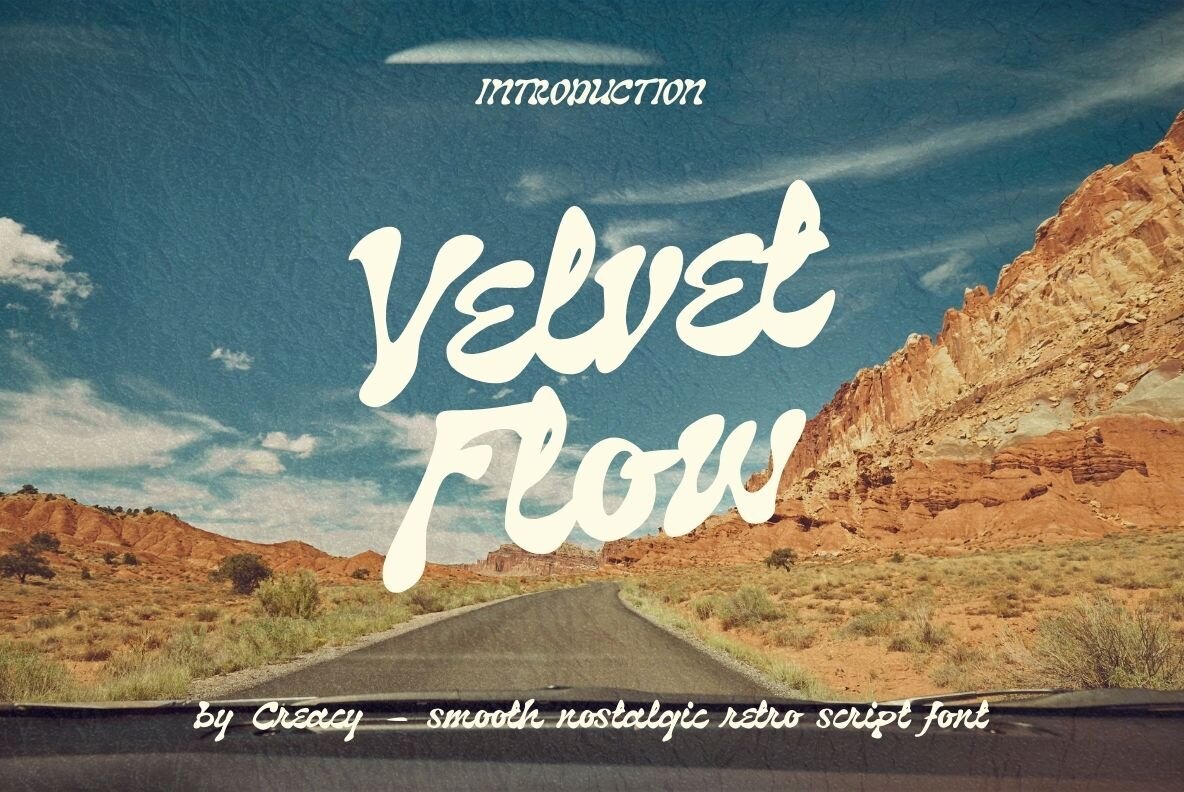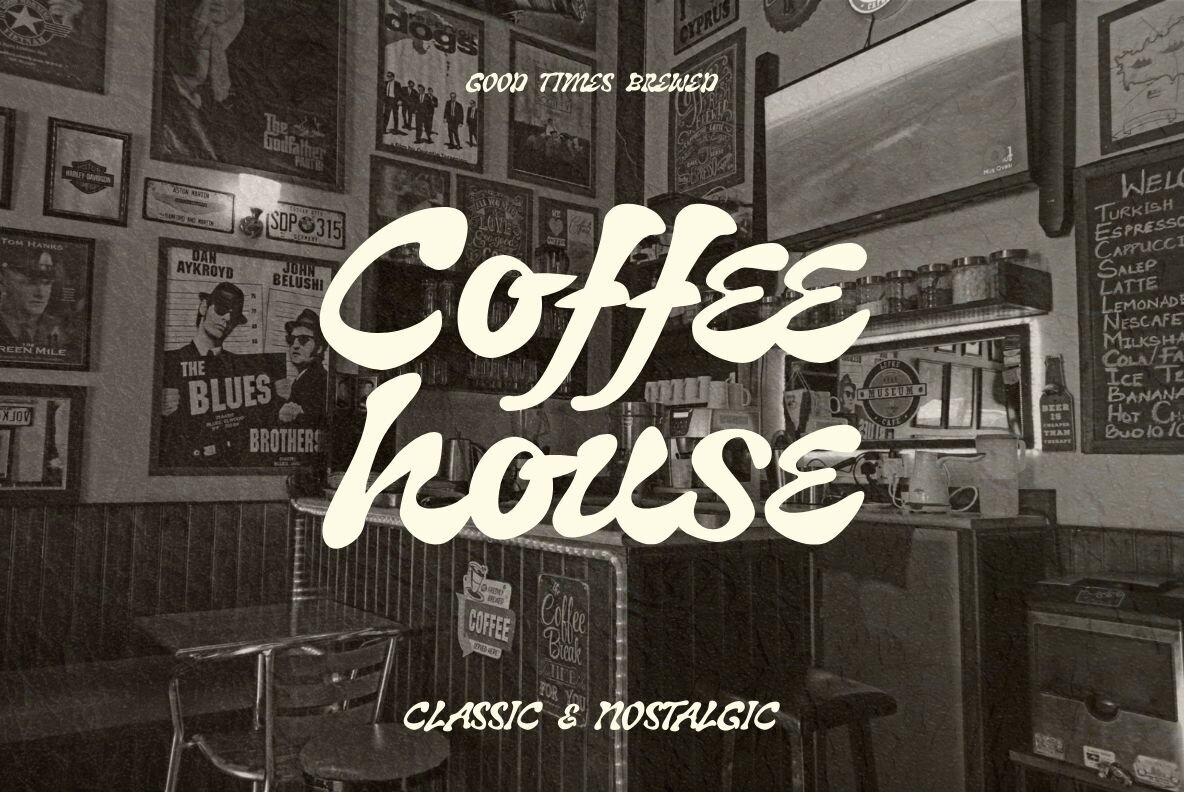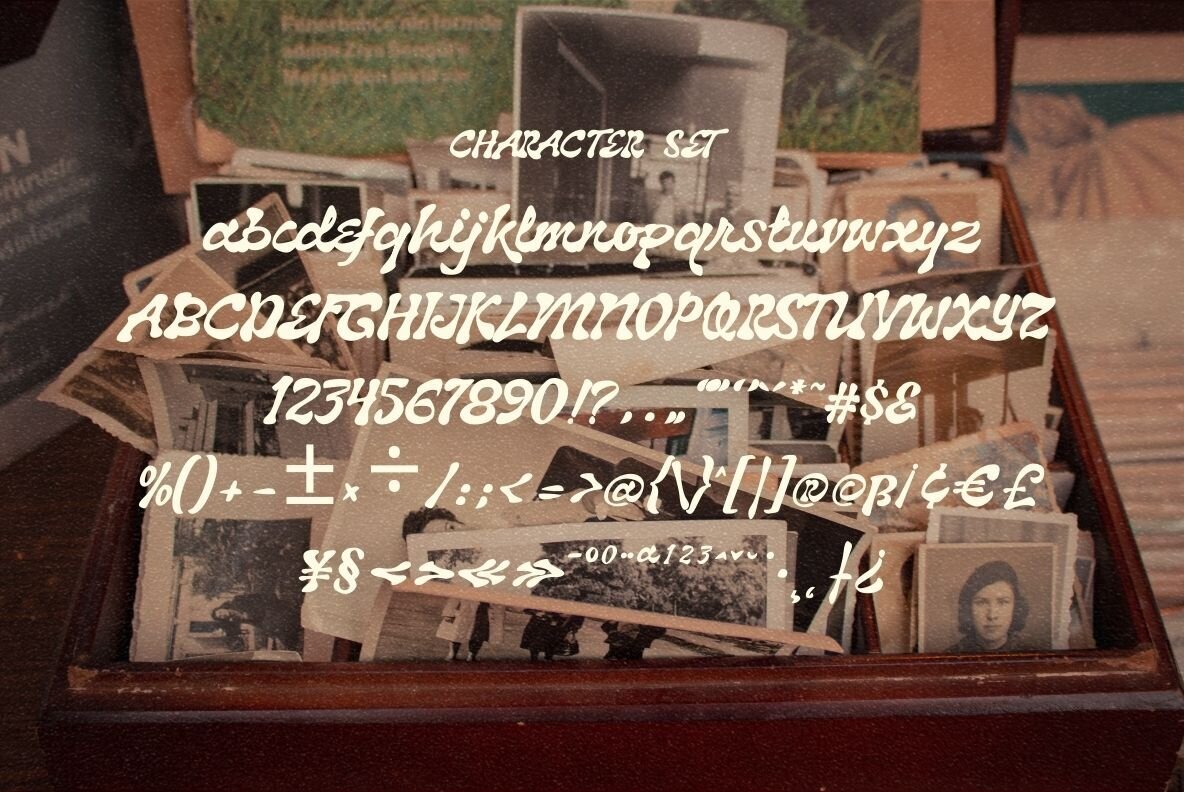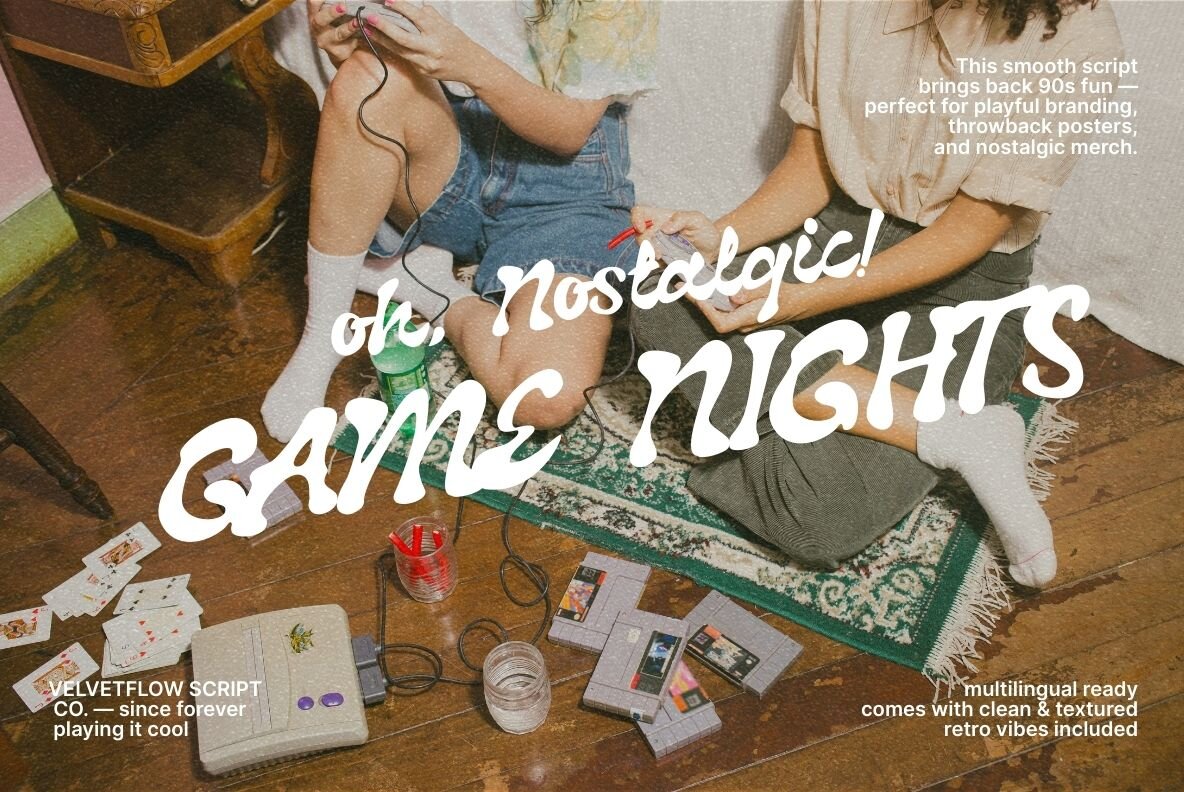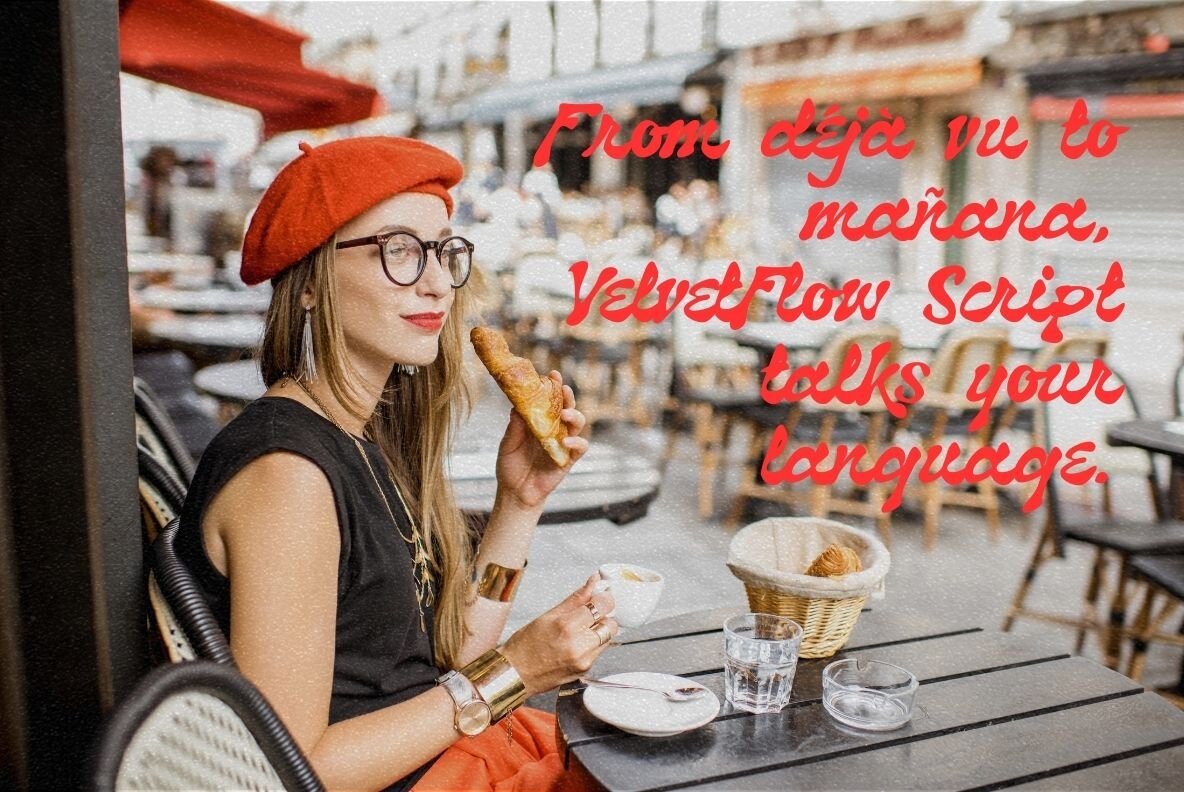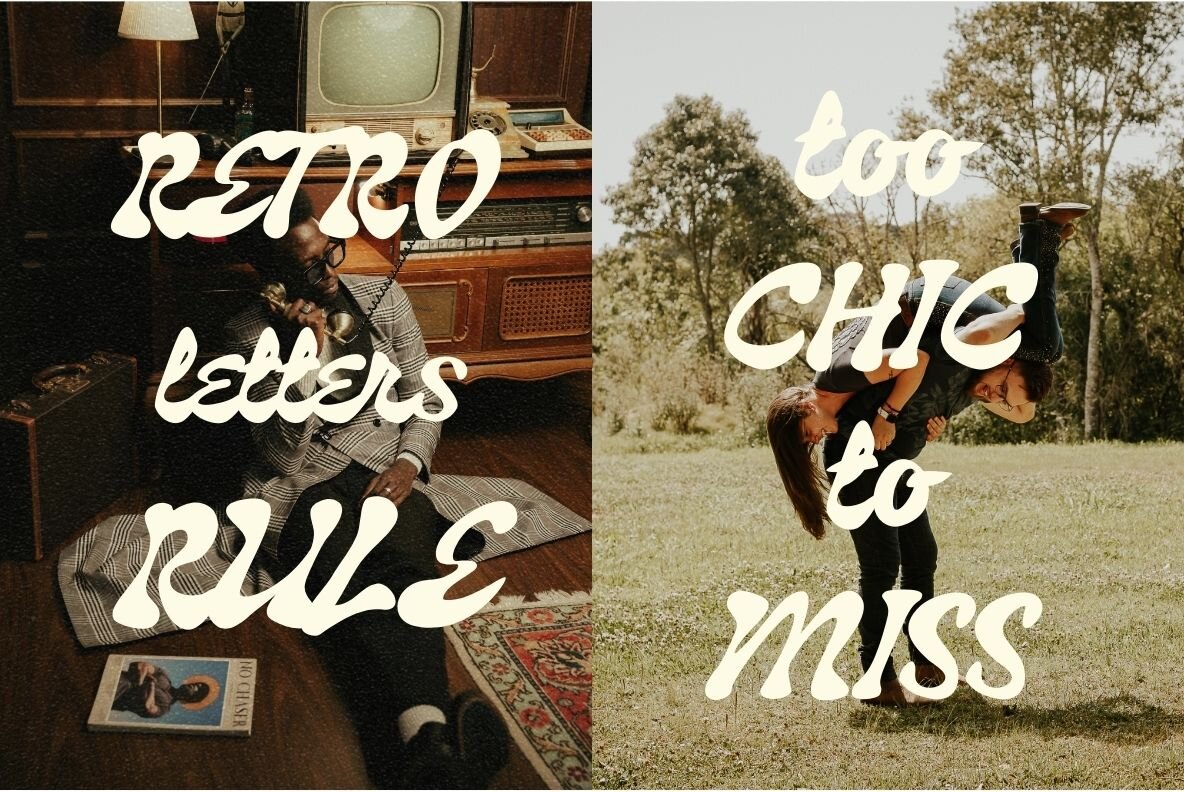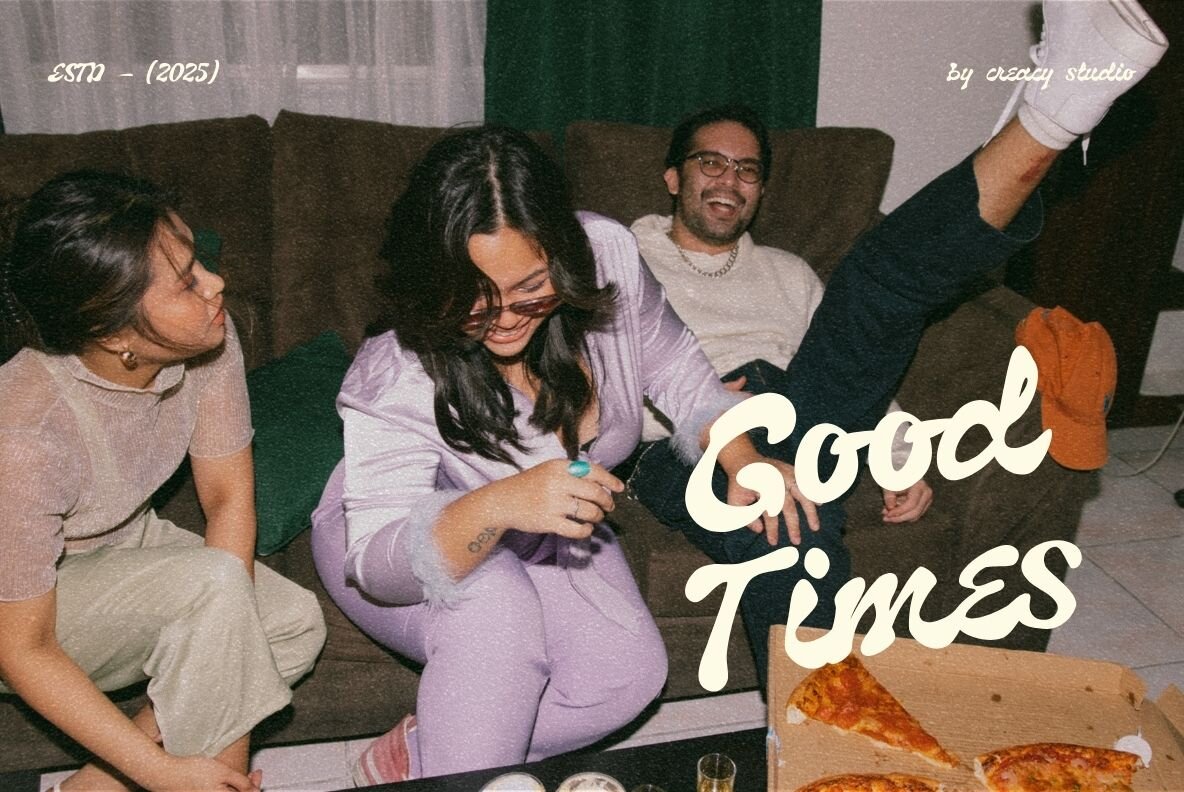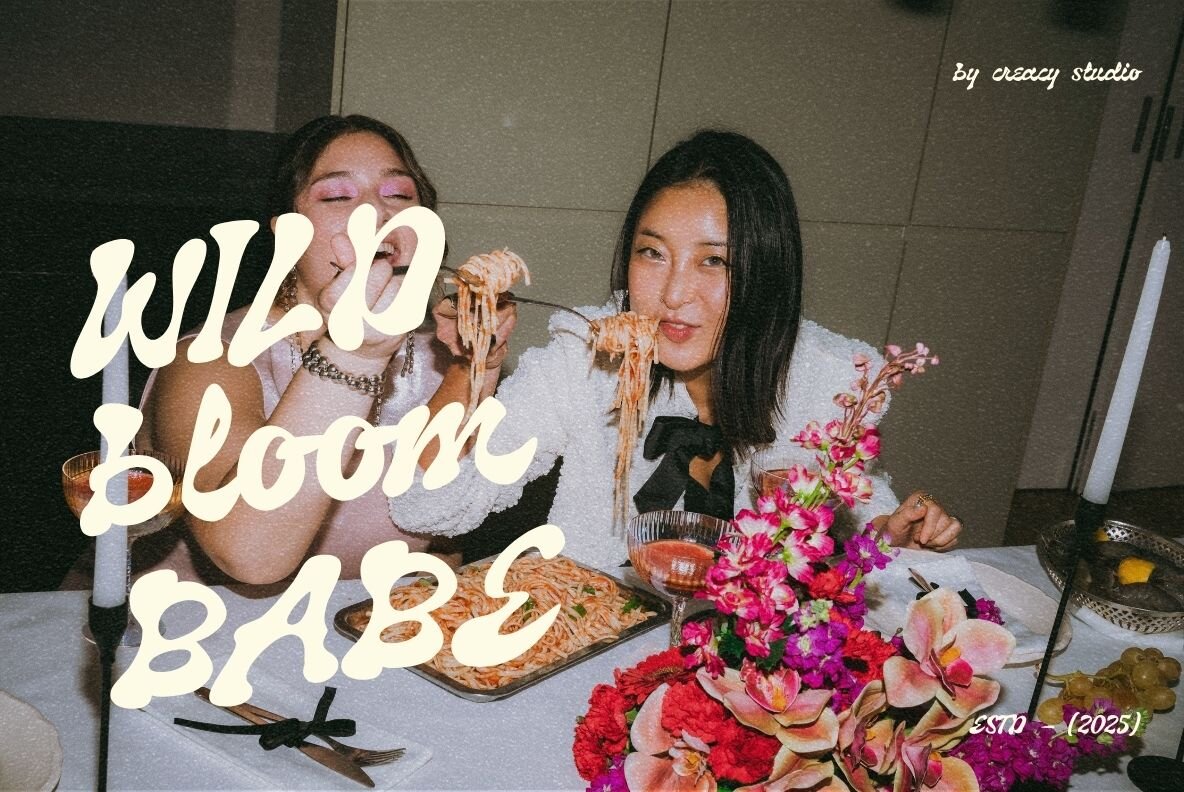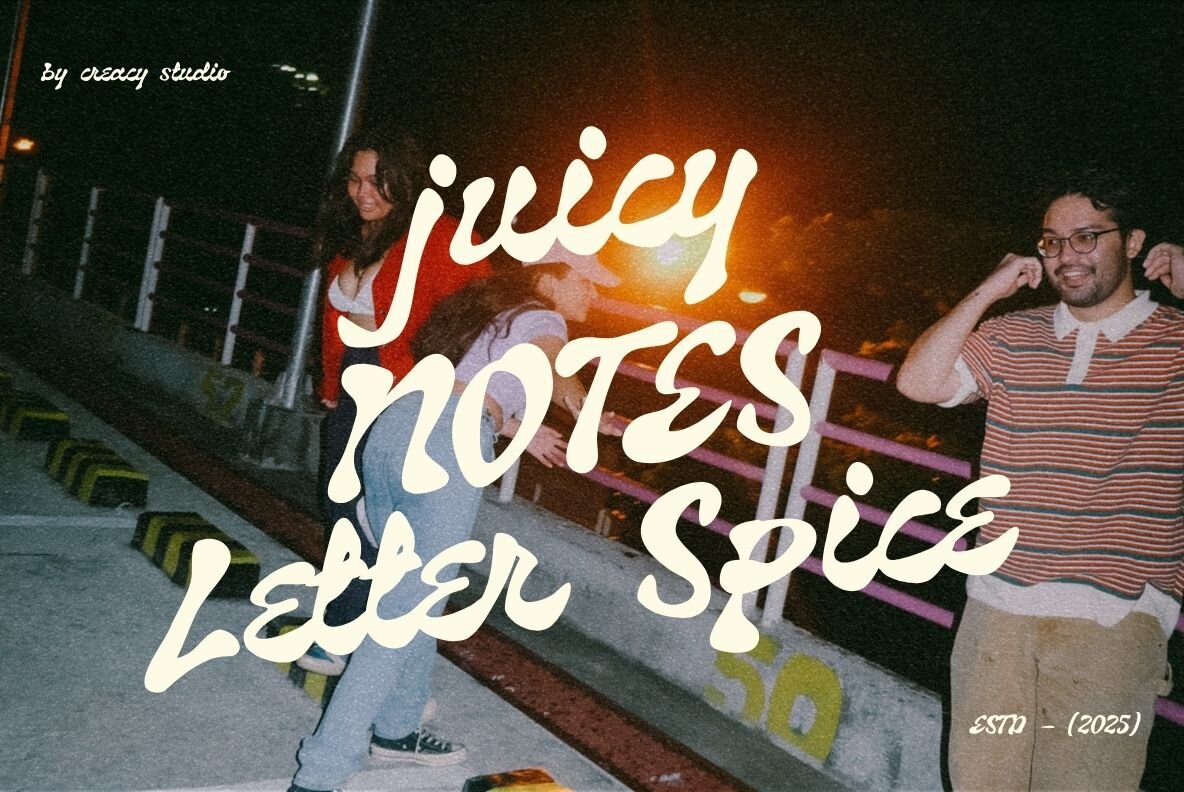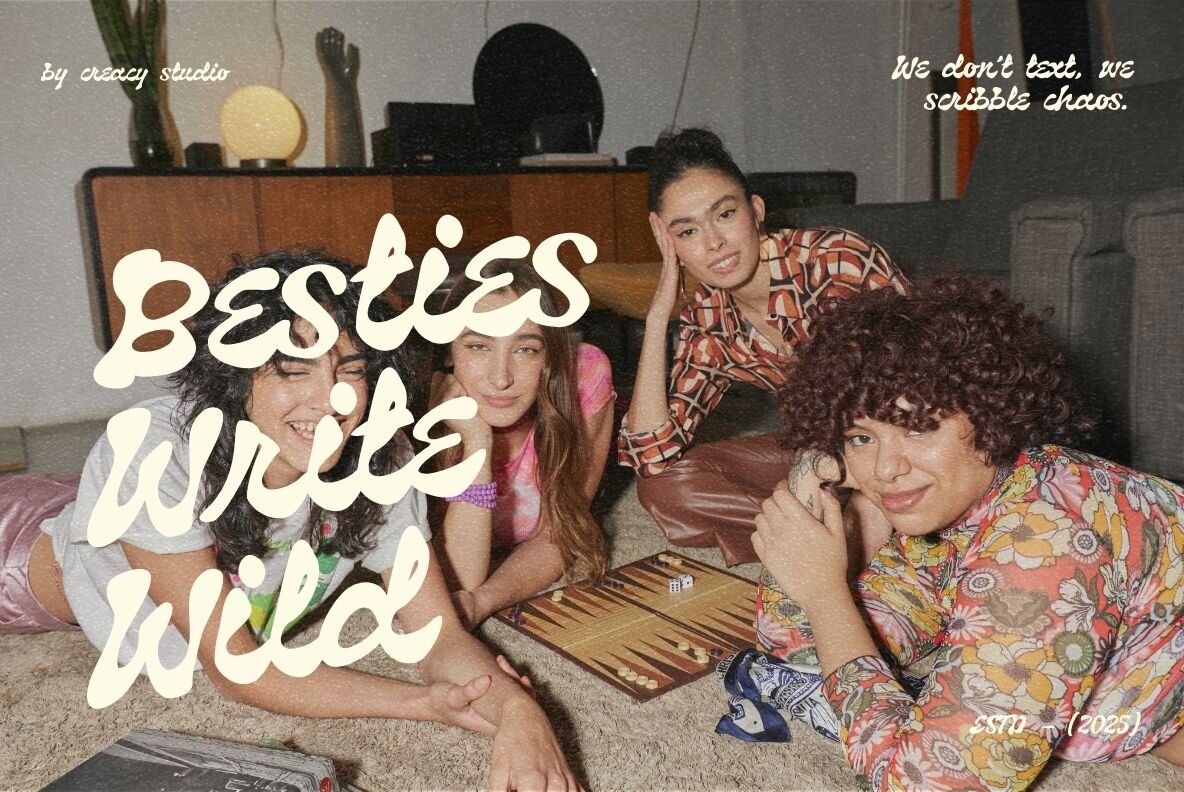
Step into a world where retro meets modern with Velvet Flow, a smooth and nostalgically inspired script font. Designed with influences from vintage signage and the charismatic flair of 70s aesthetics, this typeface resonates with spirited energy, marked by bold and wavy curves. Velvet Flow seamlessly blends playfulness with elegance, allowing for versatile application in a variety of design contexts. Perfect for projects that demand warmth and authenticity, it is especially suited for branding, packaging, posters, and social media. Velvet Flow comes in both clean and textured versions, providing designers the flexibility to balance sophistication with individuality. Its comprehensive character set includes uppercase, lowercase, numbers, punctuation, and multilingual accents, making it ideal for an array of international projects. Velvet Flow encapsulates timeless design with its flowing retro charm, perfect for any creative endeavor that seeks a touch of the past.Velvet Flow: Nostalgic Script with Modern Elegance